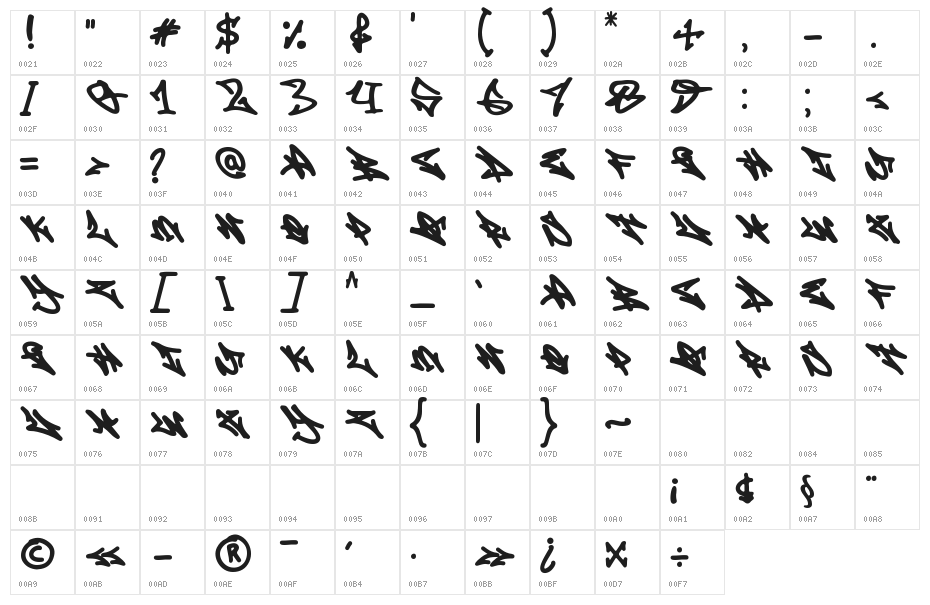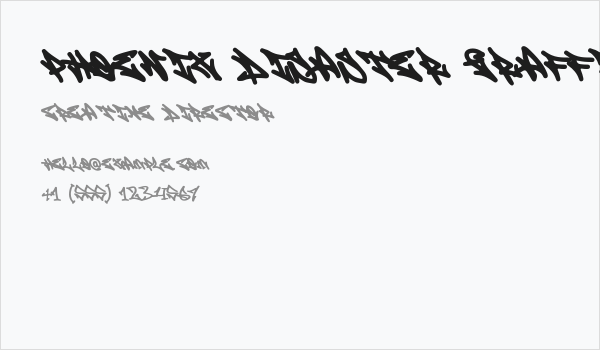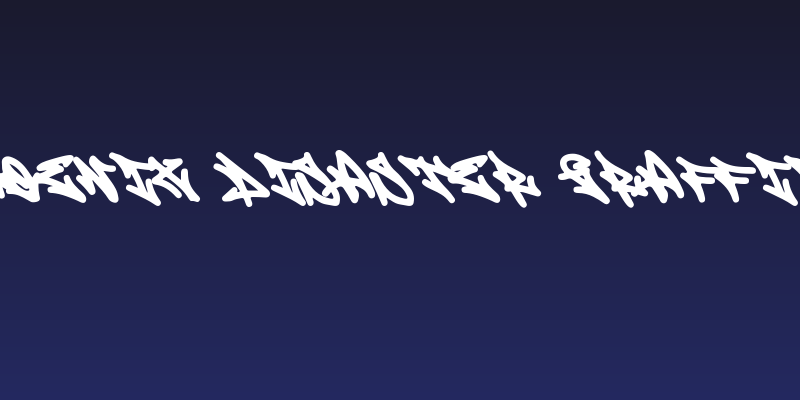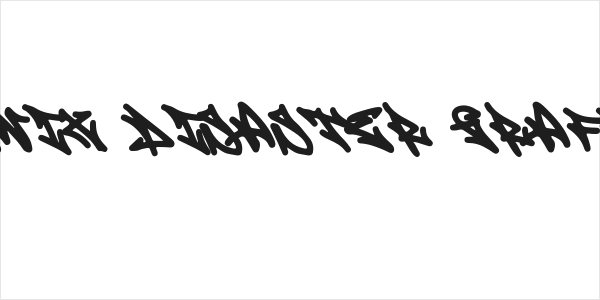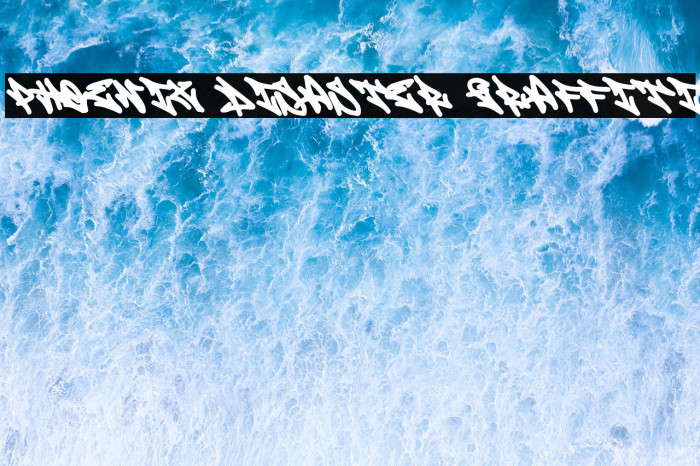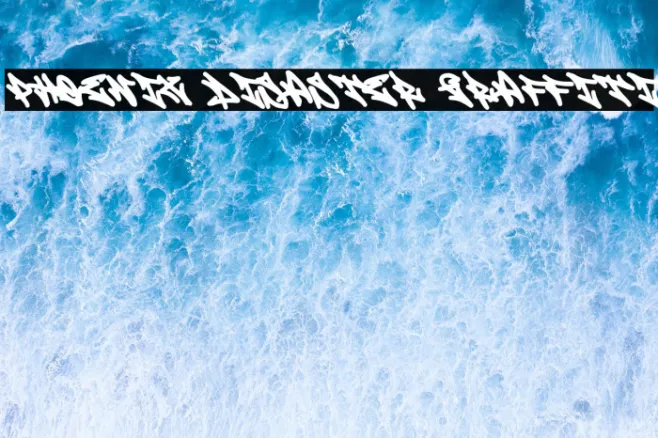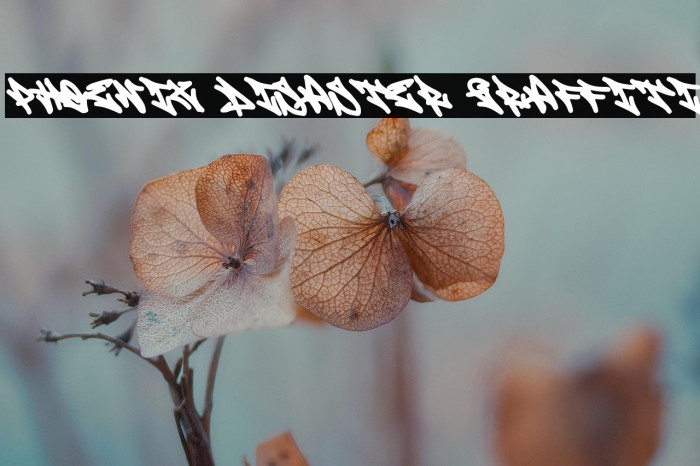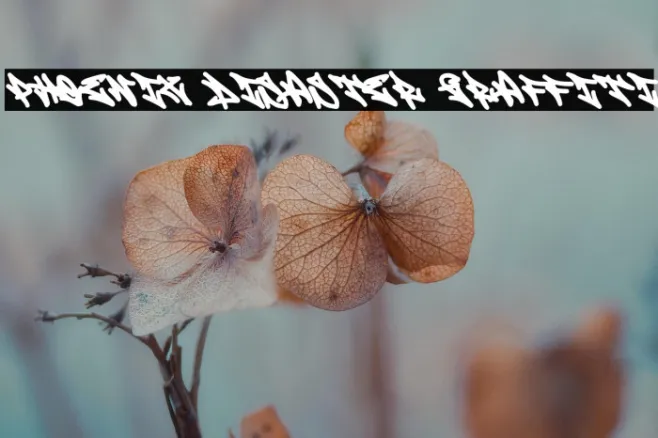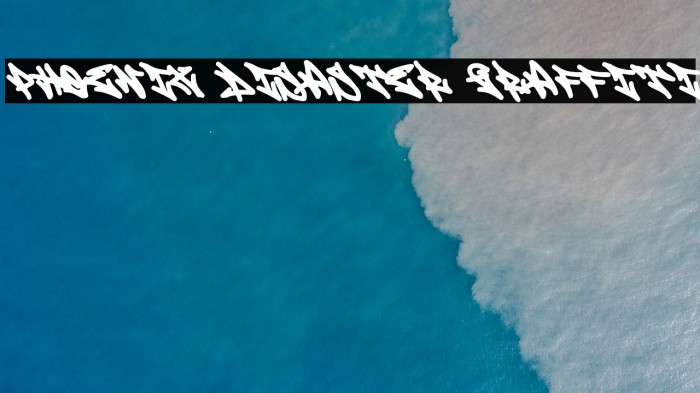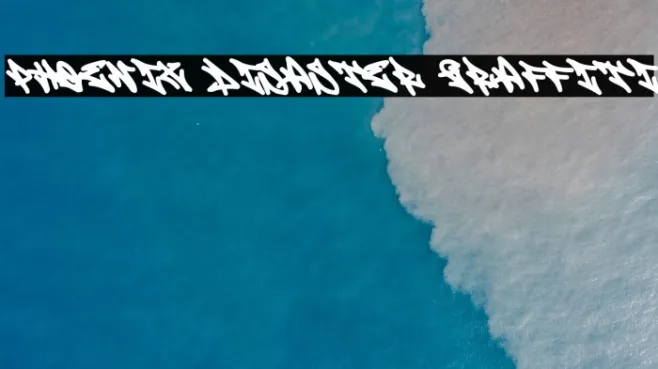
Phoenix Disaster Graffiti Font
Phoenix Disaster Graffiti Description
This graffiti-style font exudes a bold and rebellious energy, characterized by its sharp, angular lines and dynamic flow. The letters are interconnected with a fluidity that mimics the spontaneous nature of street art. Each character is uniquely stylized, with exaggerated curves and points that create a sense of movement and urgency. The font's thick strokes and high contrast make it stand out, while the tight character spacing adds to its compact and impactful appearance. This font captures the essence of urban culture and is perfect for projects that aim to convey a sense of edginess and creativity.
| Overall Style | Urban, Edgy, Rebellious |
| Use Case | Logos, Posters, Album Covers |
| Proposed Projects | Ideal for street art-inspired designs, urban-themed posters, music album covers, and edgy branding. |